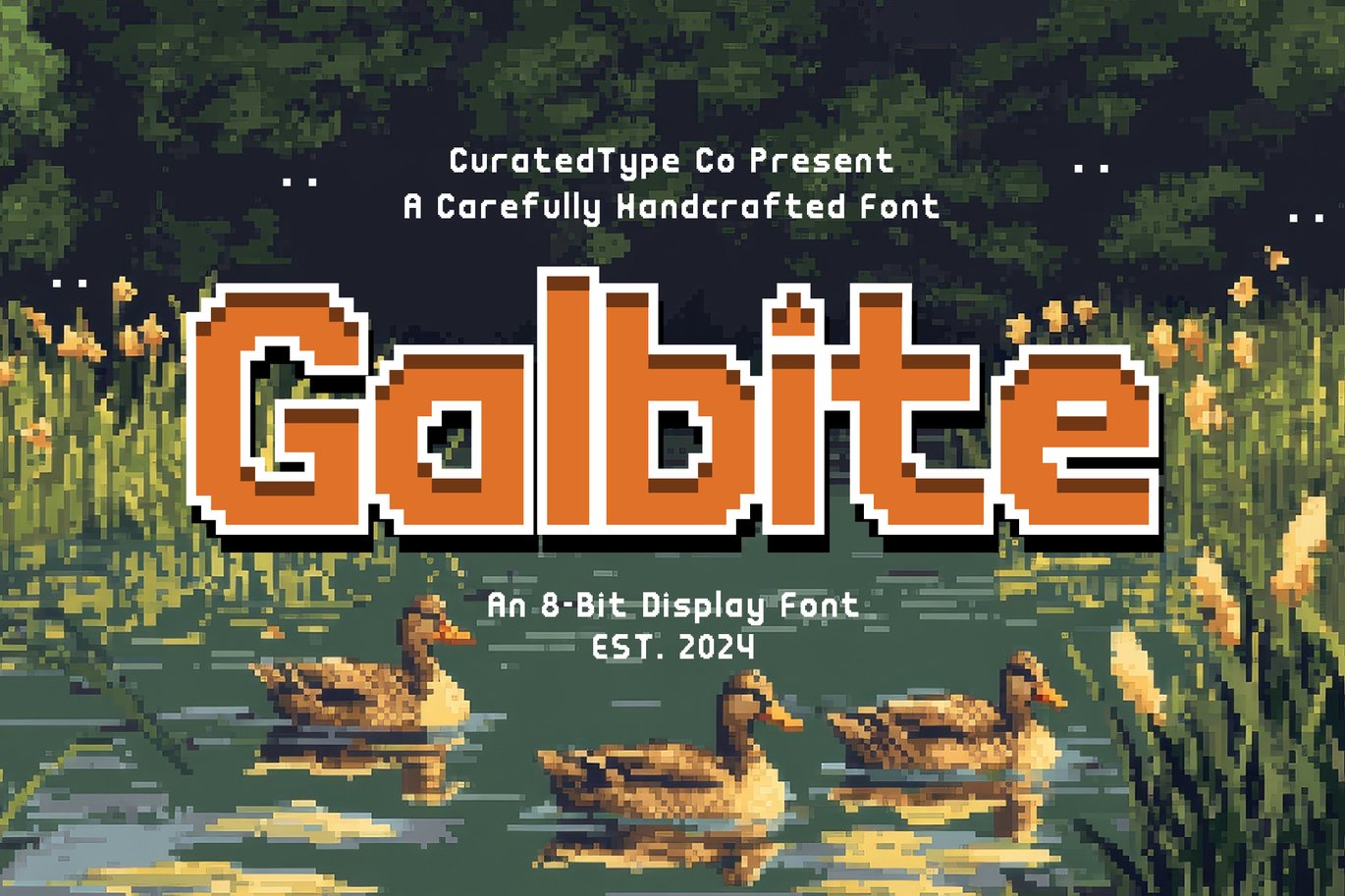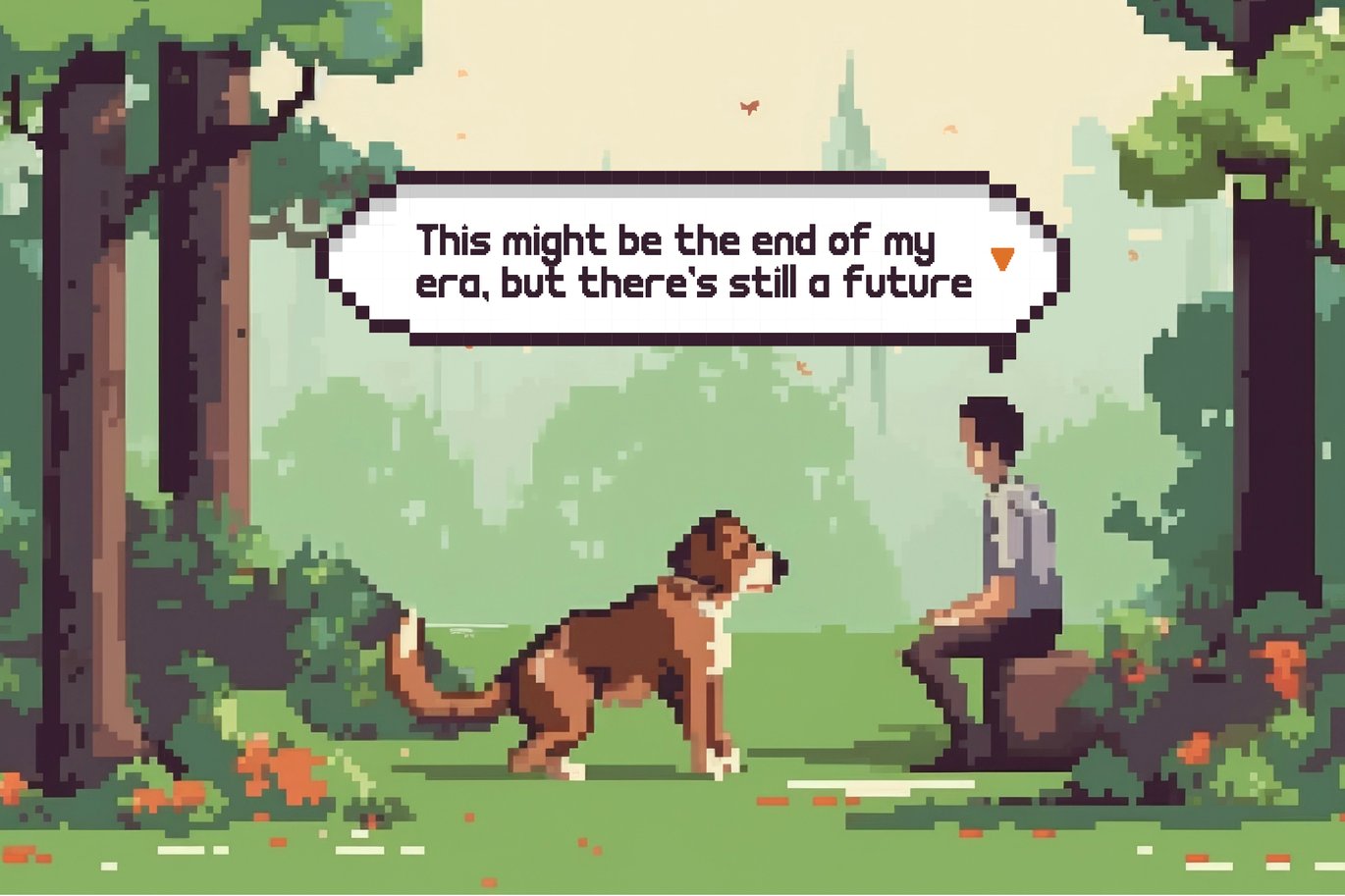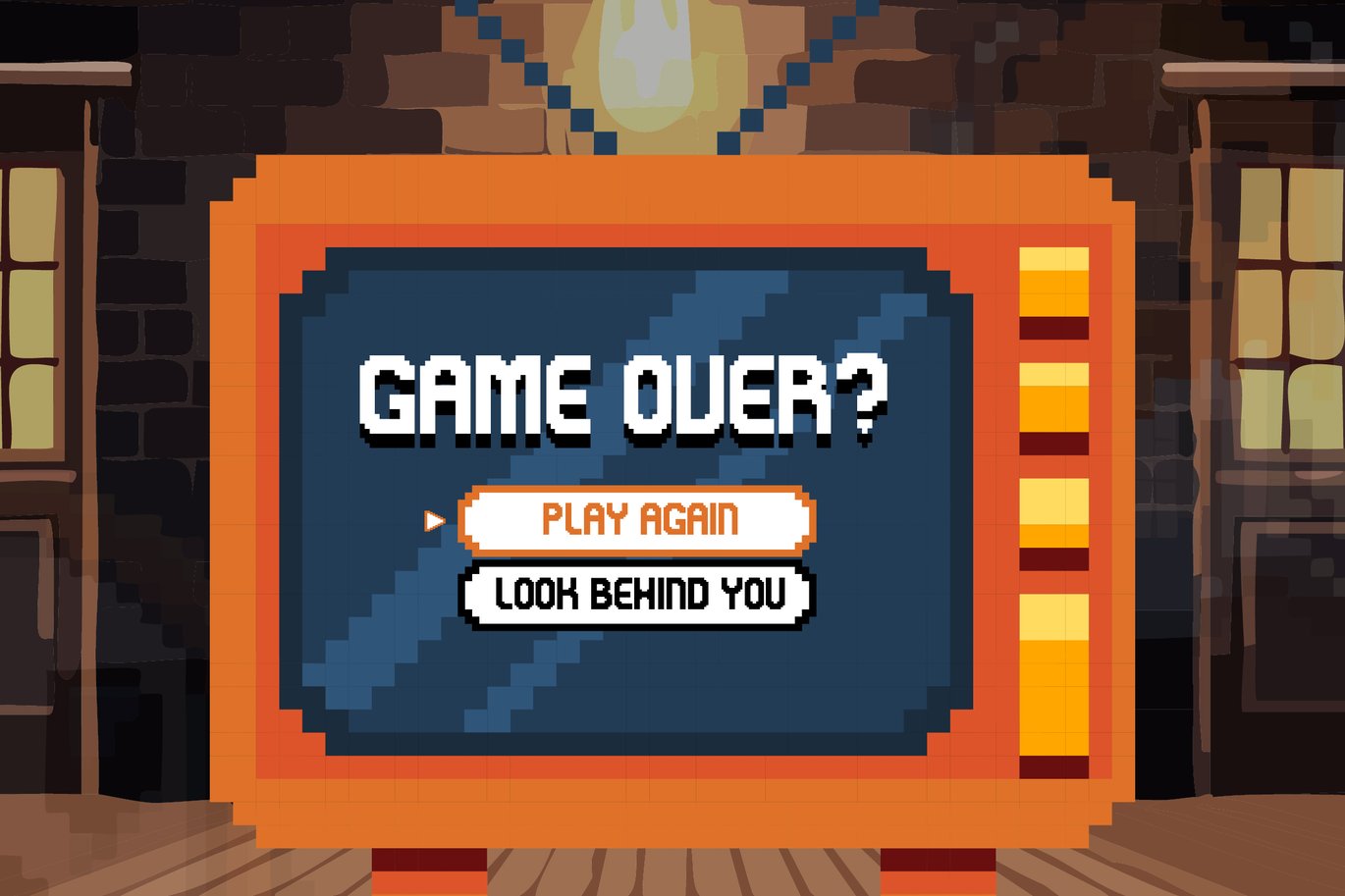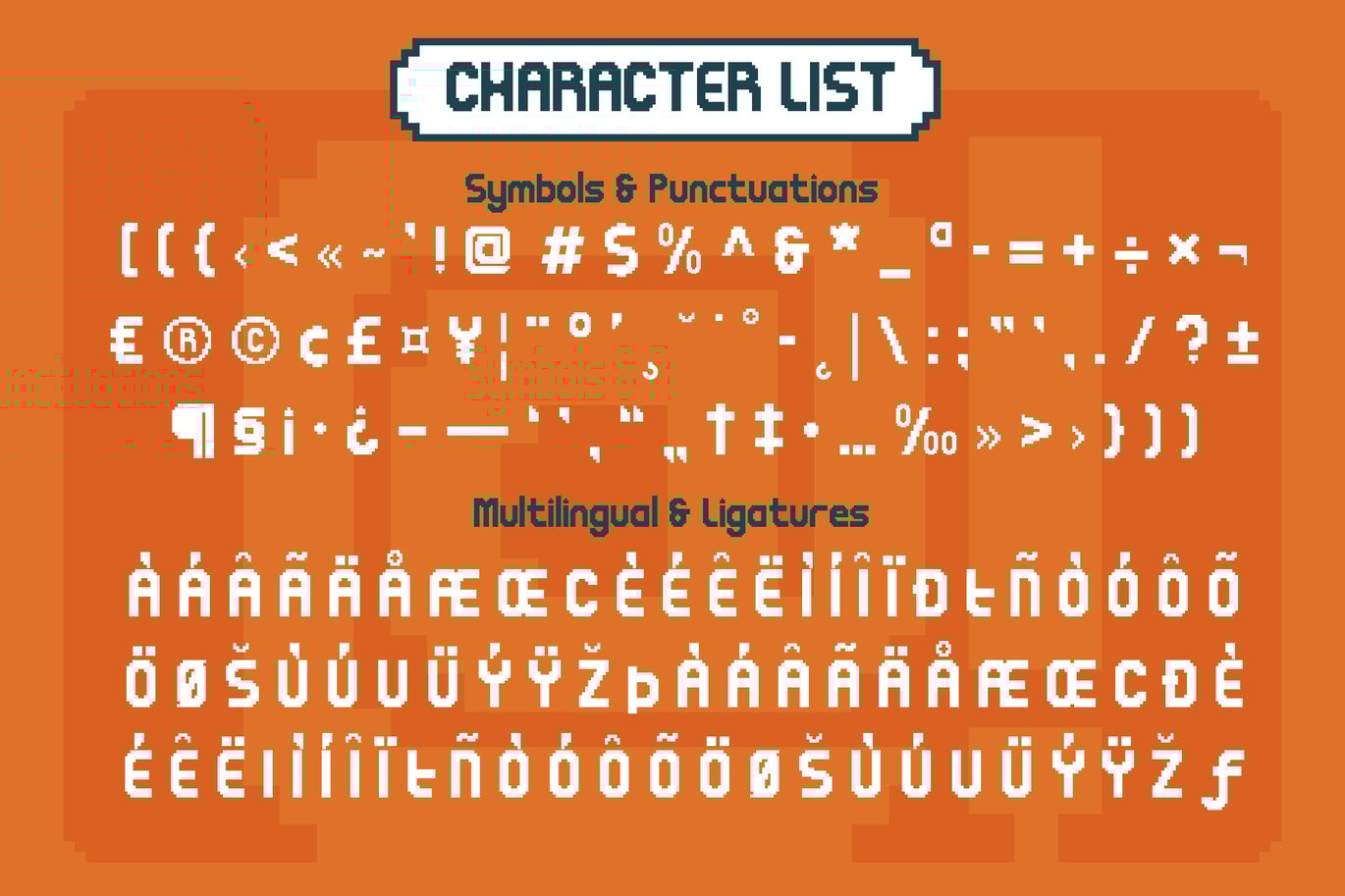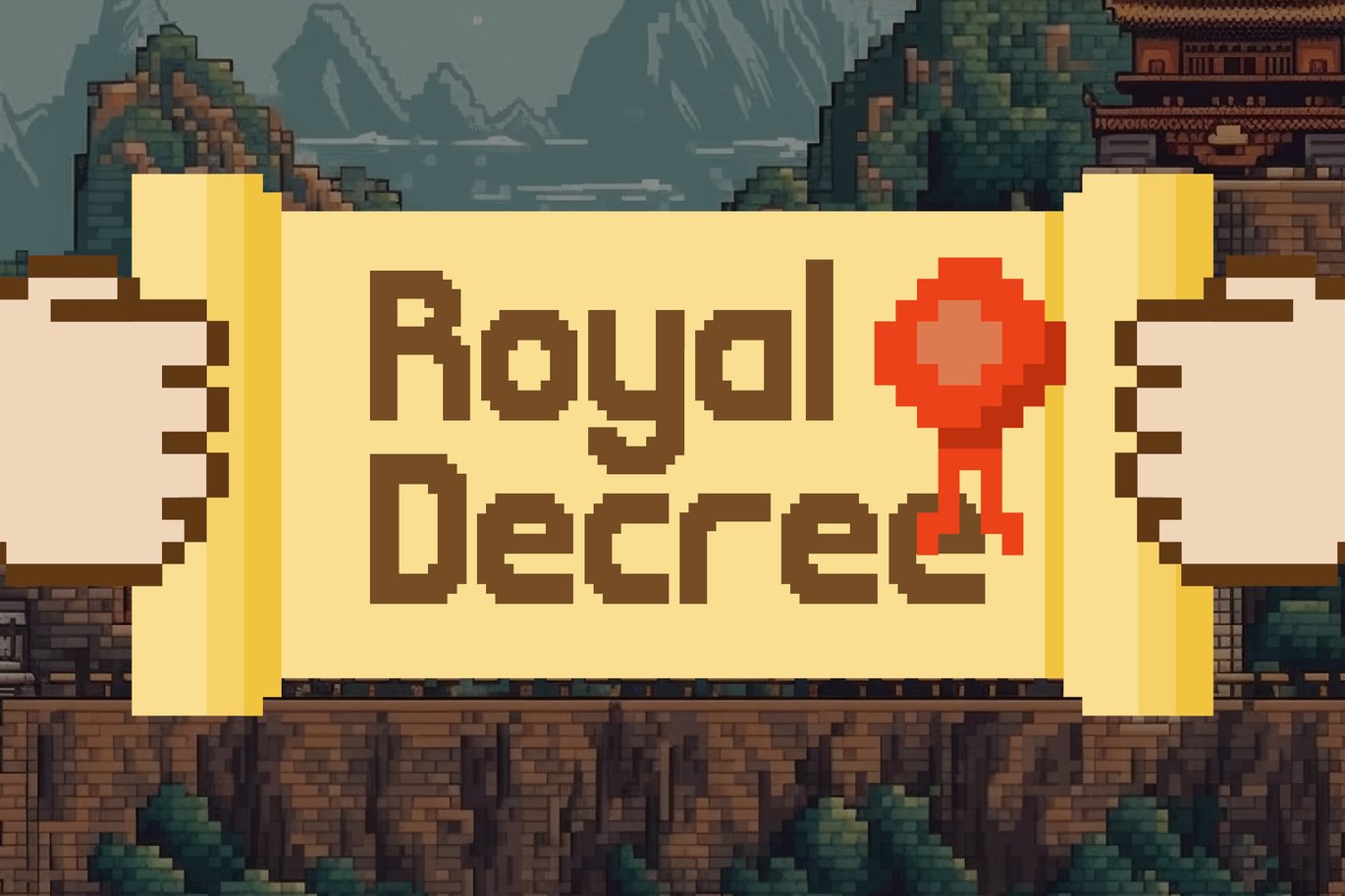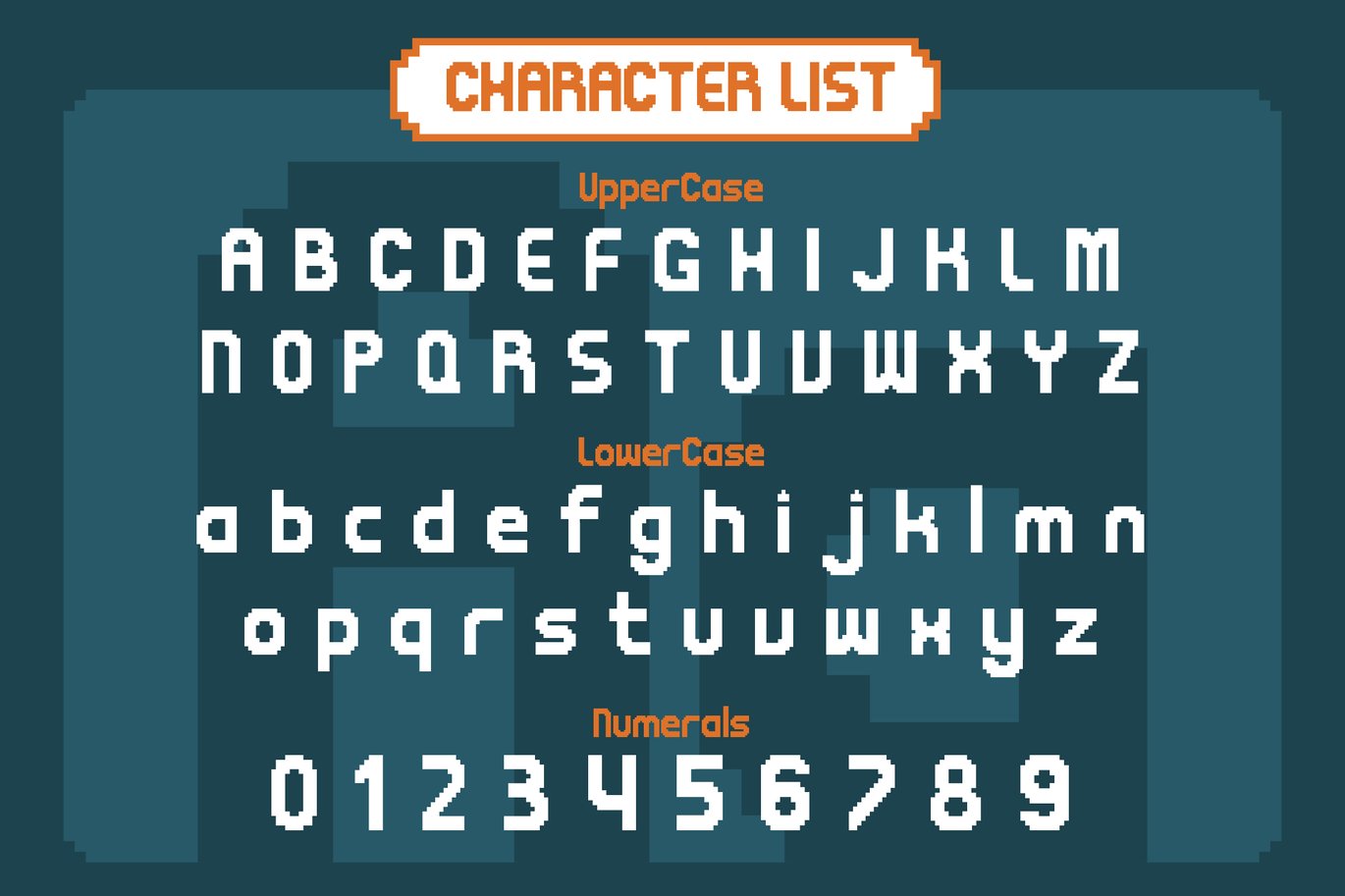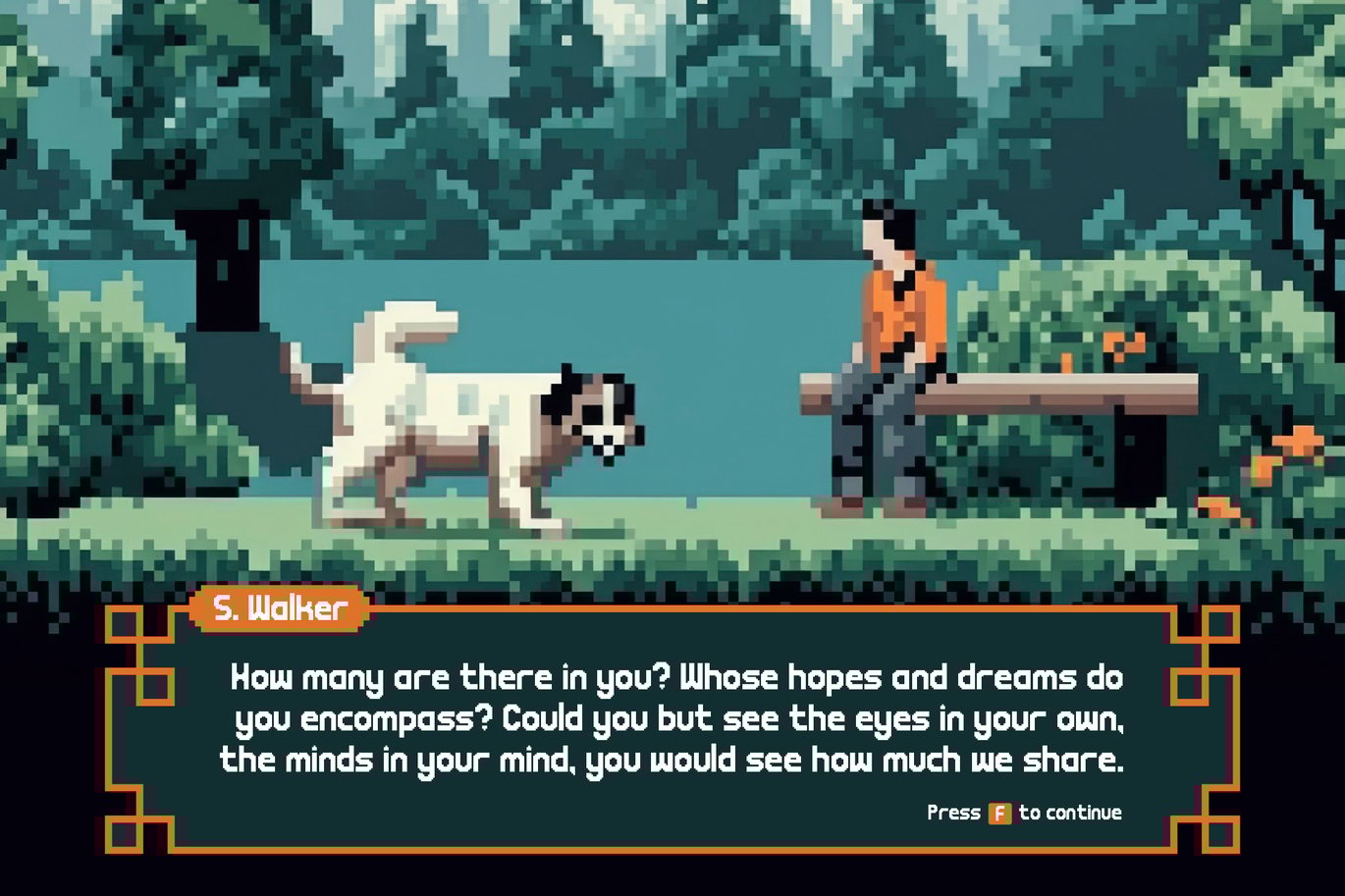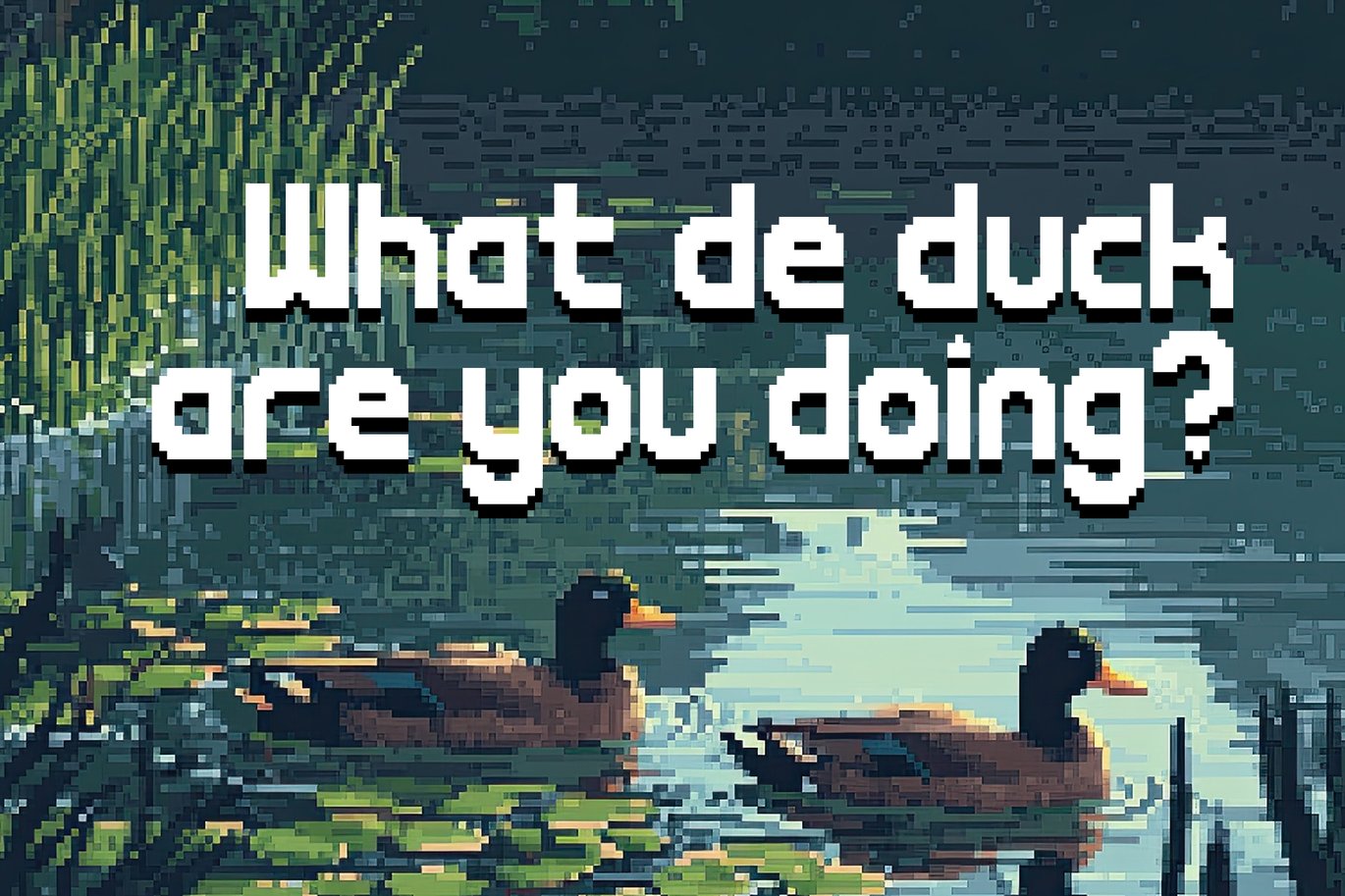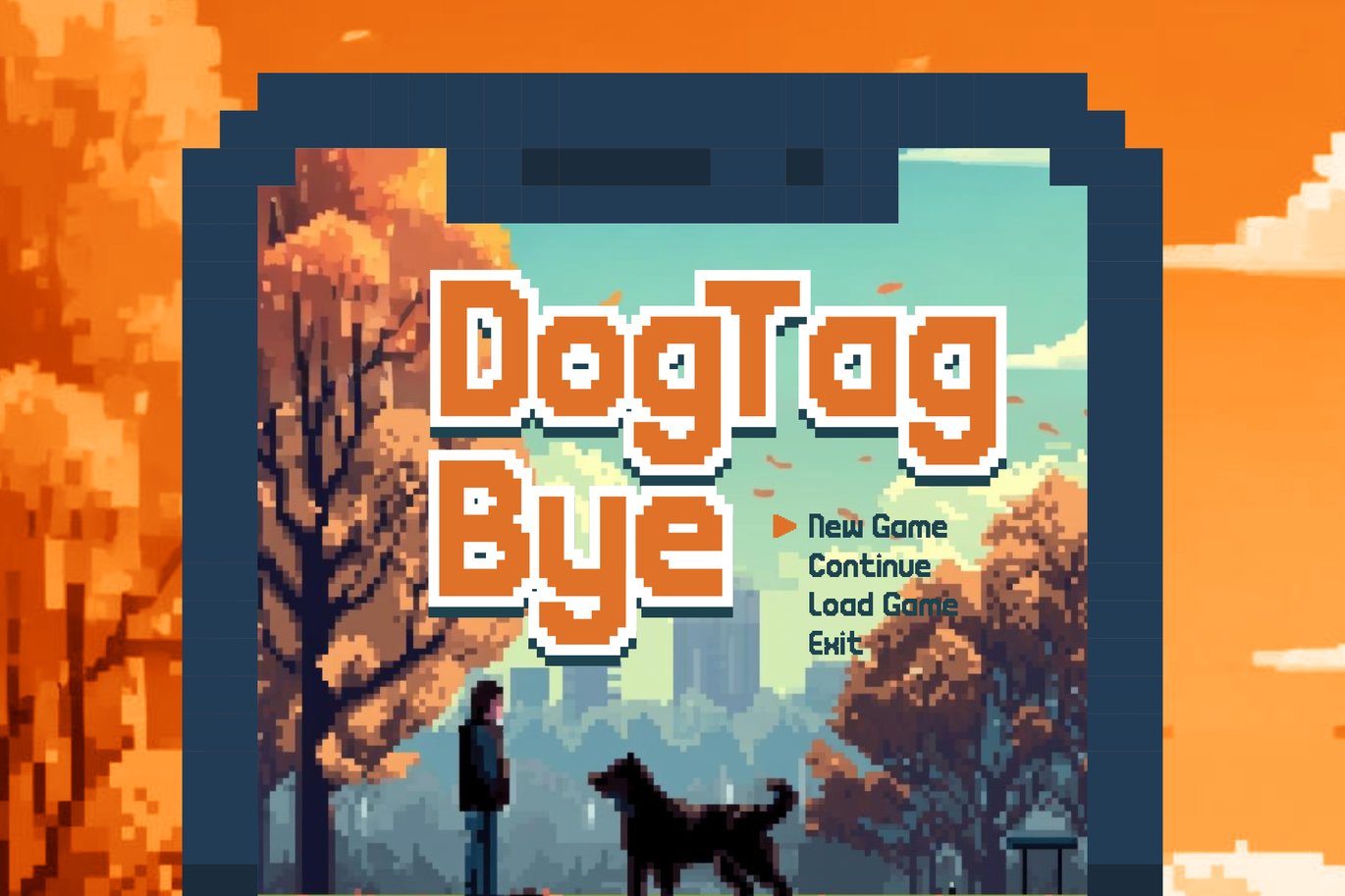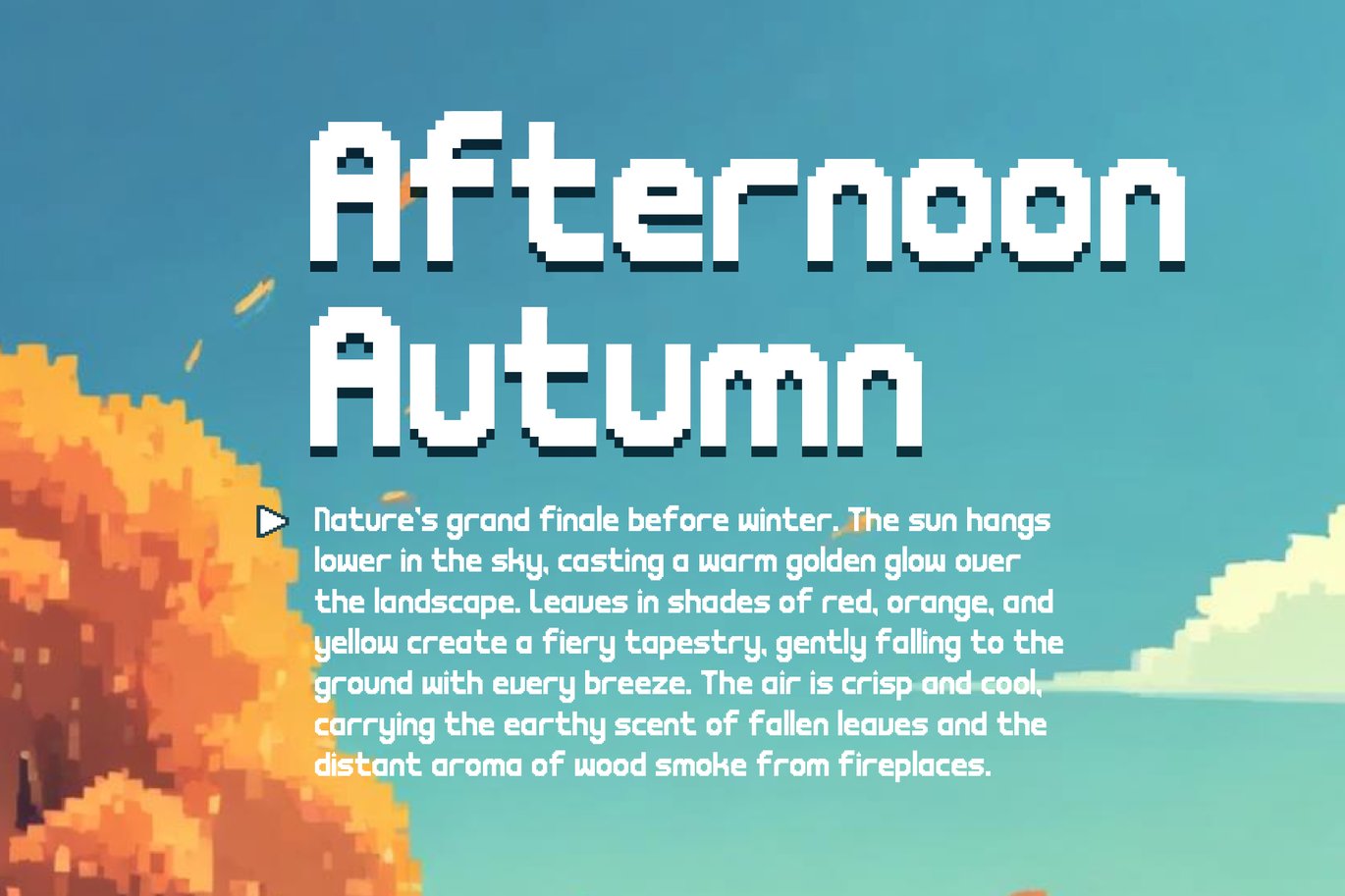
Galbite – Pixel Font
Introducing Galbite, an 8-bit pixel style font that captures the essence of retro gaming with modern precision. This bold typeface features blocky, pixelated characters that evoke the nostalgia of classic arcade games and early computer graphics. Each letter is meticulously crafted with sharp, square pixels, ensuring clarity and legibility even at smaller sizes. Galbite’s uniform thickness and strong visual presence make it an ideal choice for headlines, game titles, and digital art projects that aim to transport viewers back to the golden age of video games.
Galbite isn’t just about nostalgia—it’s about bringing the iconic look of pixel art into contemporary design. Its versatility allows it to seamlessly integrate into various creative applications, from vibrant posters to dynamic web designs. The oblique style adds a dynamic, slanted twist, perfect for adding movement and emphasis to your text. With Galbite, you get a font that’s not only visually striking but also packed with personality, ready to elevate your projects to a new level of retro chic.